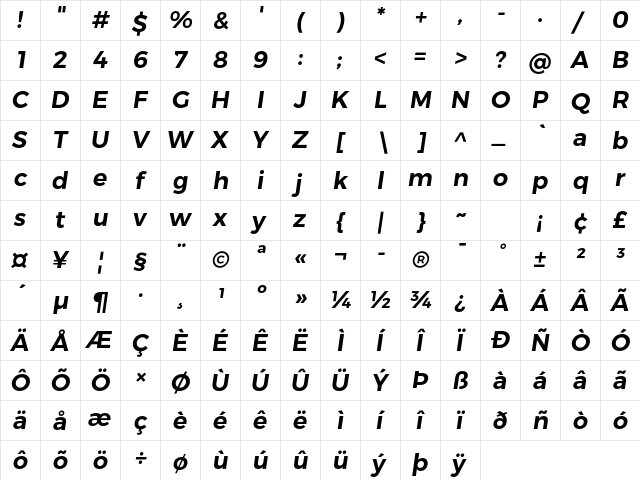
Trueno SemiBold Italic Font Preview
| Foundry | Julieta Ulanovsky |
| Designer | Julieta Ulanovsky |
Design Context for Trueno Typeface
Trueno offers clean, dependable letterforms without strong stylistic allegiance, making it a practical choice for designers who need flexibility. The dynamic lean of this cut emphasises speed and emphasis in any layout. The heavy weight commands attention and anchors typographic hierarchies.
Pro Tip: Try Trueno for annotation and caption copy alongside an upright companion — the contrast in angle creates a dynamic but ordered typographic system.